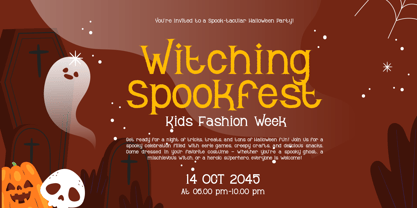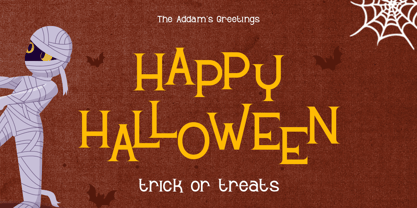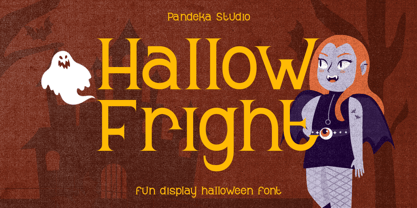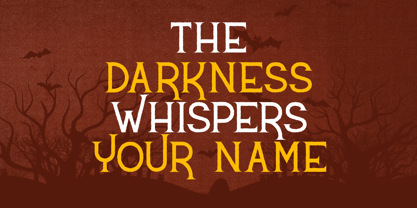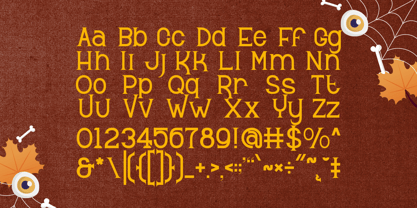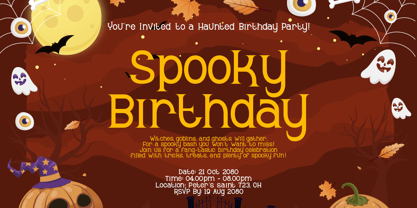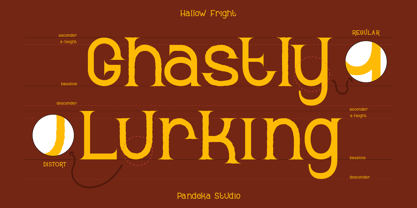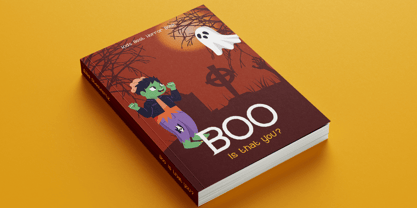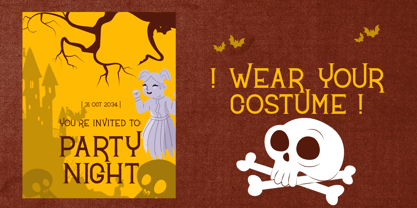
Hallow Fright
by Pandeka Studio
The Hallow Fright Font Family was designed by Sagara Nararya and published by Pandeka Studio. Hallow Fright contains 2 styles and family package options. More about this family
Hallow Fright is a spooky and playful display font, perfect for all your Halloween-themed designs. With its quirky shapes and eerie vibe, this typeface instantly sets the mood for parties, posters, invitations, greeting cards, and festive packaging. Its bold personality makes it a fun choice for any project that needs a touch of frightful charm.
The font comes with 2 unique styles: Regular and Distort, giving you the freedom to mix and match for even scarier effects. Complete with uppercase and lowercase letters, numbers, punctuation, and multilingual support, Hallow Fright is designed to help you create ghostly headlines, haunted titles, and spooky messages with ease.
• 2 Style: Regular and Distort
• Full Character Set: Uppercase, lowercase, numbers, symbols, and punctuation
Designers: Sagara Nararya
Foundry: Pandeka Studio